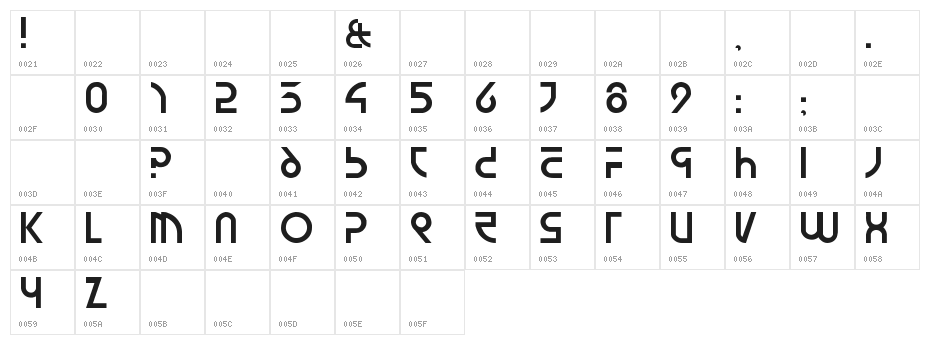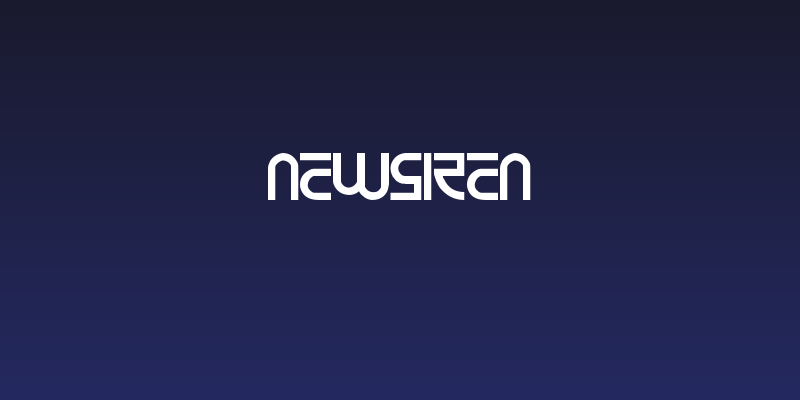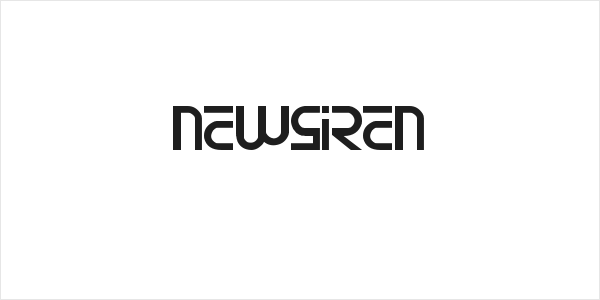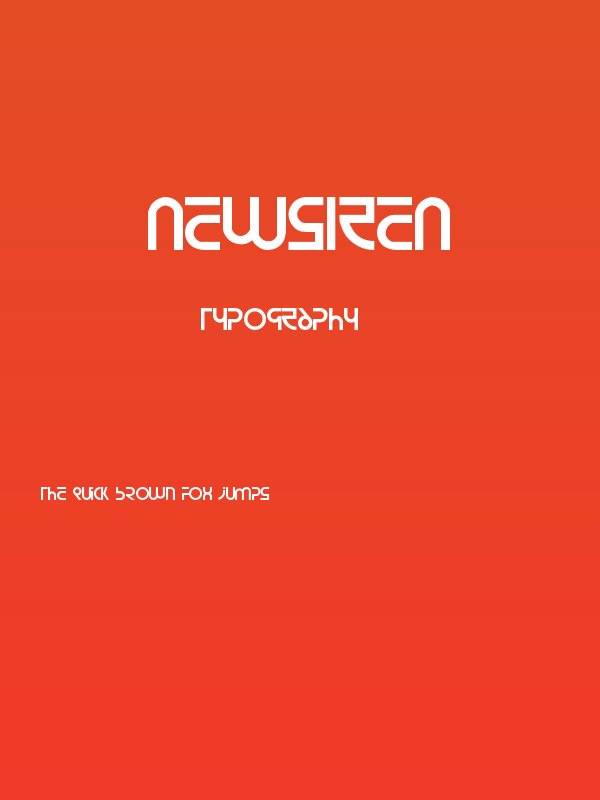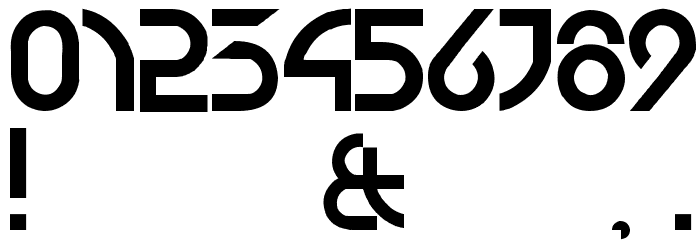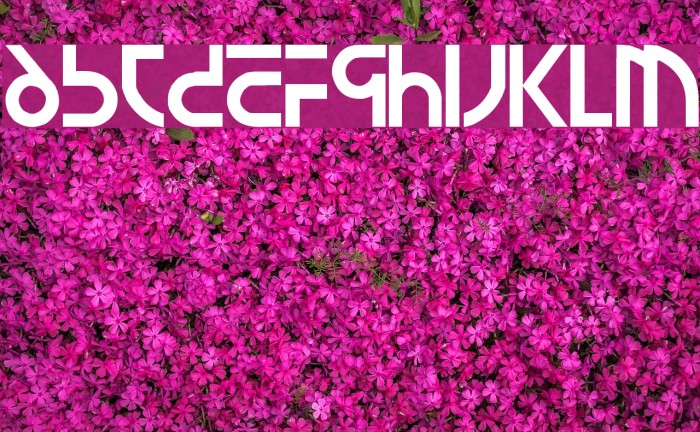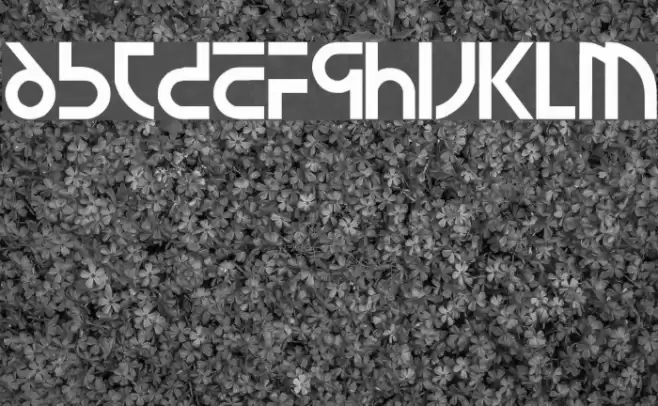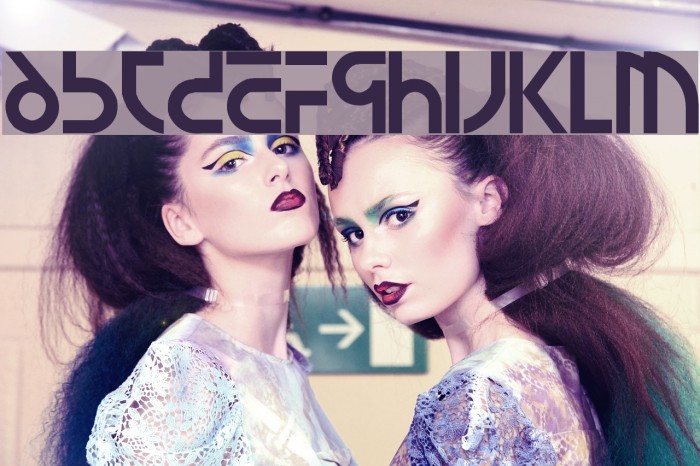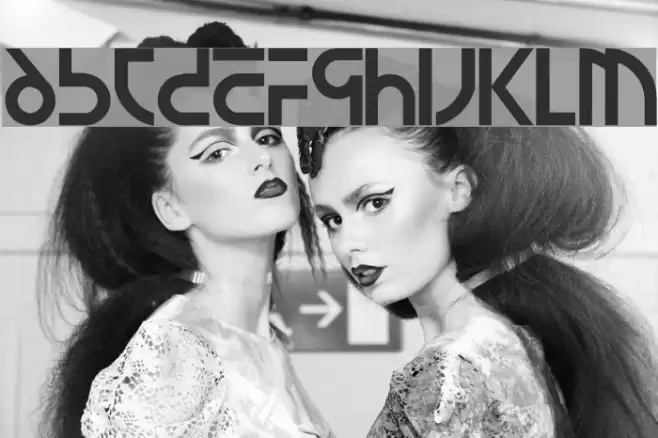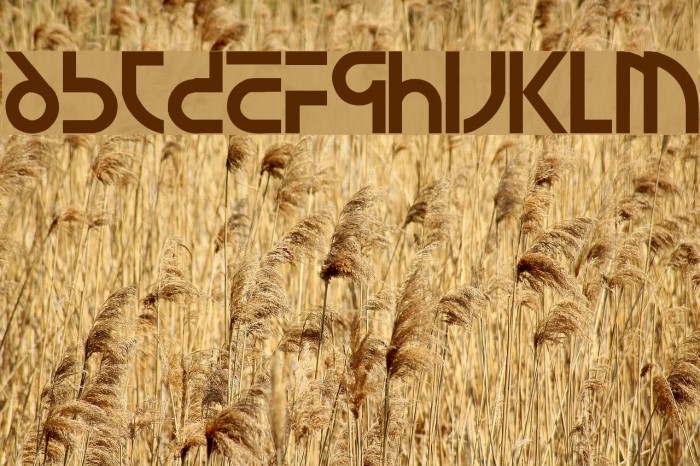
newsiren Font
This font features a bold and futuristic design with geometric shapes and sharp angles. The characters are constructed with a combination of straight lines and curves, creating a dynamic and modern appearance. The uppercase and lowercase letters maintain a consistent style, with unique cutouts and asymmetrical elements that add visual interest. The numerals are equally bold, with a distinctive style that complements the alphabet. Special characters are designed to match the overall aesthetic, ensuring a cohesive look across all glyphs. This font is ideal for projects that require a strong, contemporary feel.
| Proposed Projects | Ideal for technology branding, sci-fi posters, modern logos, and digital media. |